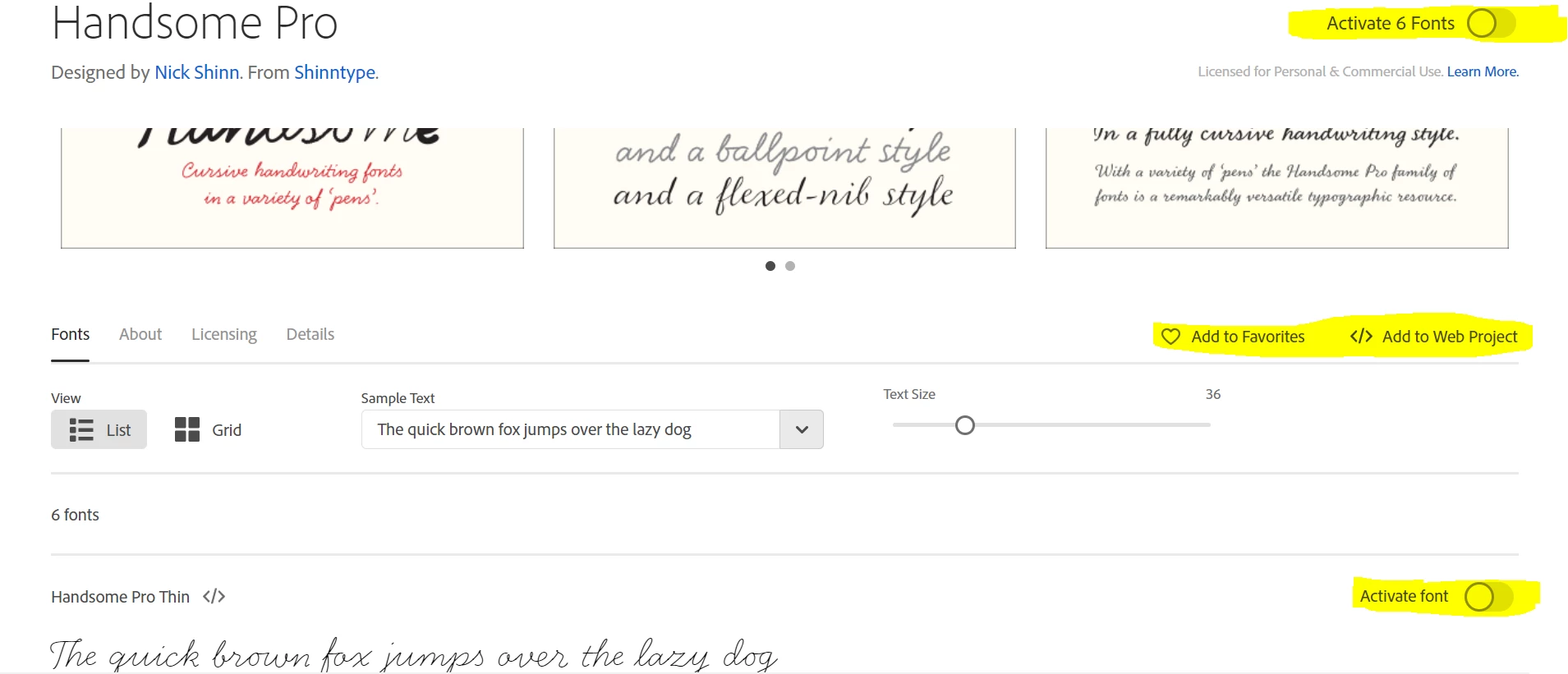
Fonts with different 'strokes'
I came across Handsome Pro this morning – https://fonts.adobe.com/fonts/handsome-pro#fonts-section – and one of the features it lists is "Cursive handwriting fonts in a variety of pens".
What's not clear to me is how to enable this feature? The activated font is simply a single stroke width throughout; how can I explore the other 'pens'?
Thanks Neelam, fortunately I've been using Adobe products and commercial fonts for long enough to understand the activation process. The sample image of the typeface page suggests a pencil-like 'stroke' is available, but this is not listed in the 6 different fonts listed (which reallt has one 'pen' with four weights, and another pen style with 2 weights rather than 6 distinct pen styles ... hence my question).
I apologize for the confusion. I can see why the graphic would lead you to believe there would be font styles with the names shown in the image.
In fact, the regular pro styles are the "round-nib", the classic style is the "flexed-nib", and the pro nib style is the "broad-nib". We hope to add the fourth variation — ballpoint, in the near future. The foundry calls that the rough style.